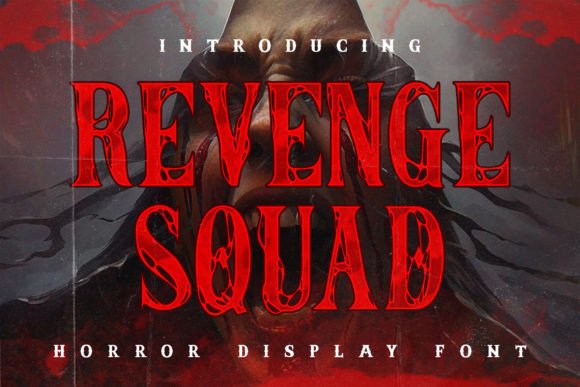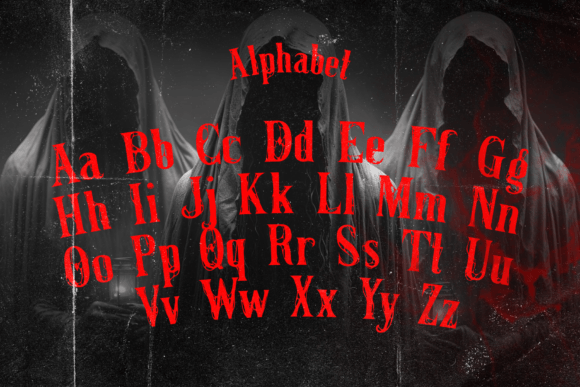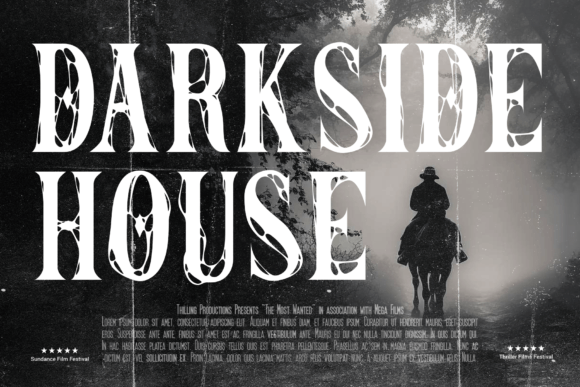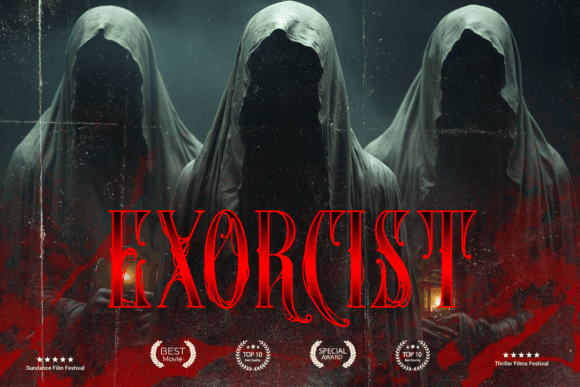
Revenge Squad Font: A Metal Horror Display Font for Posters & Logos
About the Revenge Squad Font
Get ready to be inspired by Revenge Squad Font, a fresh and dynamic typeface for modern creators. Revenge Squad Metal Horror Font
Revenge Squad Metal Horror Font is a distinct, highly detailed, Horror Metal Font font. It would make a great choice for exquisite Music, Posters, retro-urban designs, tattoo business branding, logos, vintage designs, and more.
Revenge Squad excels in headline treatments, posters, and branding applications for projects with a strong, rebellious aesthetic. Its detailed nature makes it ideal for logos and short impactful text, particularly within the music, tattoo, and entertainment industries. Avoid using it for body copy or extended text; its intricacy would hinder readability.
This font’s personality is aggressive and bold, demanding attention. Pair it with a clean sans-serif like Futura or a sharp geometric sans-serif for contrast and readability in supporting text. For a more visually balanced approach, consider a classic serif font like Garamond or a slightly more modern serif like Playfair Display to add sophistication.
Using Revenge Squad with a script font, such as a rounded brush script, could unexpectedly soften its harsh edges, depending on your desired effect. However, always prioritize legibility when pairing fonts.
Revenge Squad Font Usage Examples
Revenge Squad Font Example